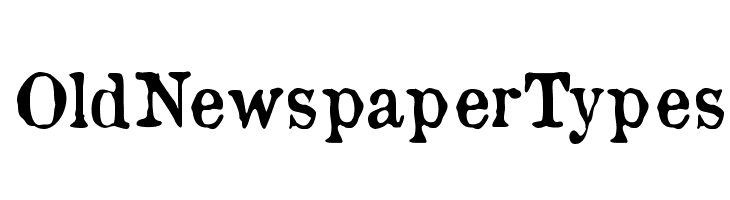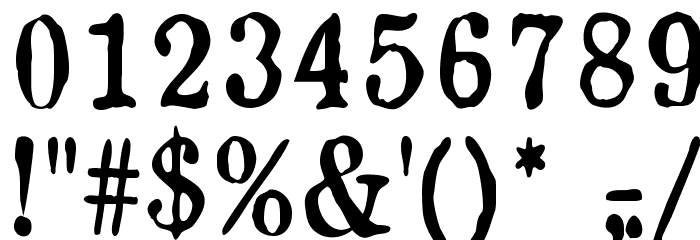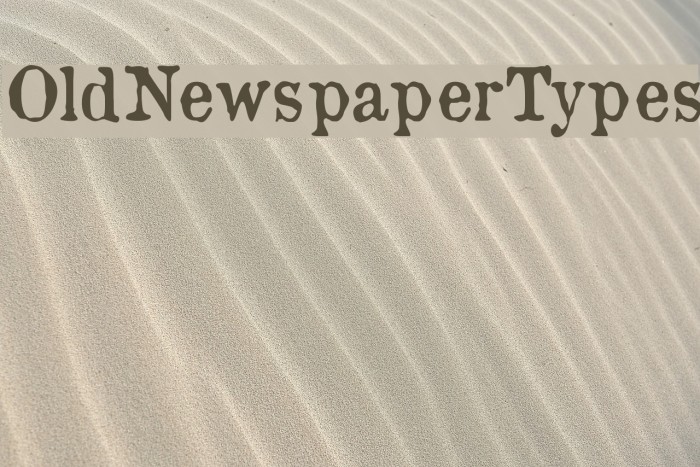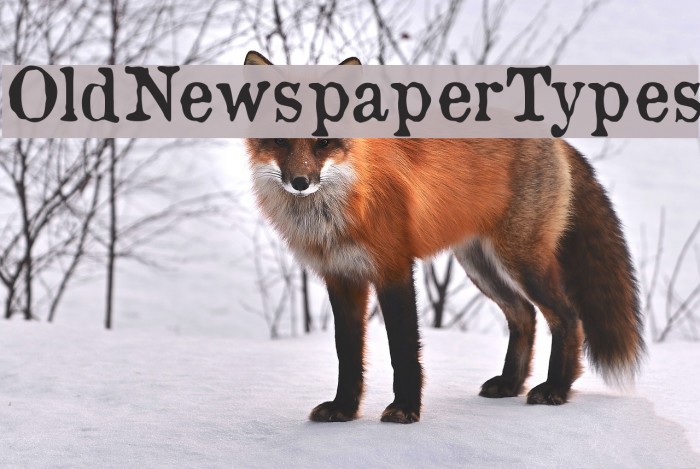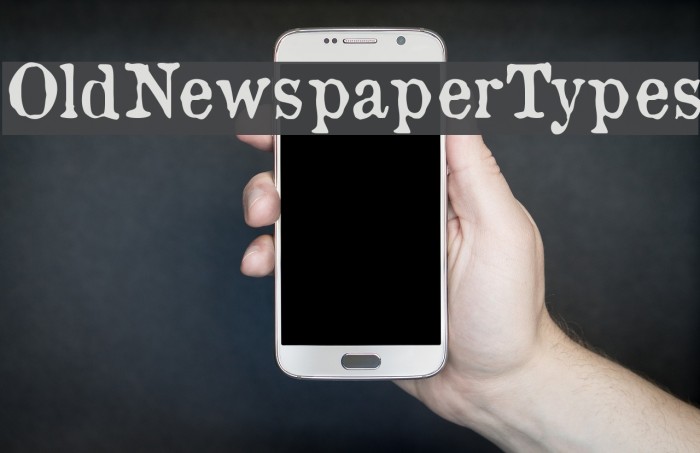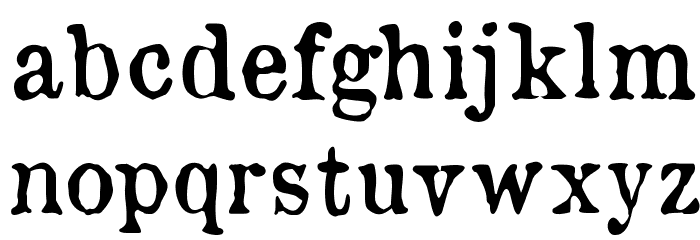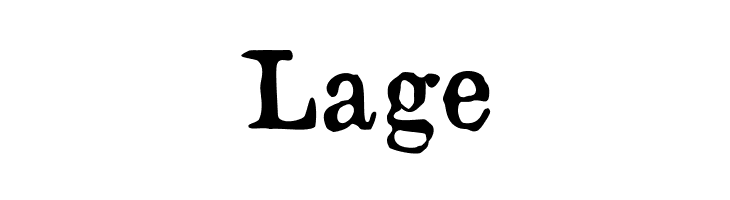
OldNewspaperTypes Font
OldNewspaperTypes Description
This font exudes a vintage charm reminiscent of classic newspaper typography. It features bold, thick strokes with a slightly distressed appearance, giving it an authentic, aged look. The serifs are pronounced and slightly curved, adding to the traditional feel. The uppercase letters are robust and commanding, while the lowercase letters maintain a consistent style with a touch of elegance. Numbers and special characters follow the same design ethos, ensuring a cohesive appearance across all text. The overall impression is one of nostalgia and historical significance, making it ideal for projects that aim to evoke a sense of the past.
A vintage, bold serif font with a distressed, newspaper-like appearance from Typewriter fonts.
- Proposed Projects: Ideal for vintage-themed posters, historical publications, retro branding, and any design that seeks to capture an old-world charm.
- Overall Style: Vintage